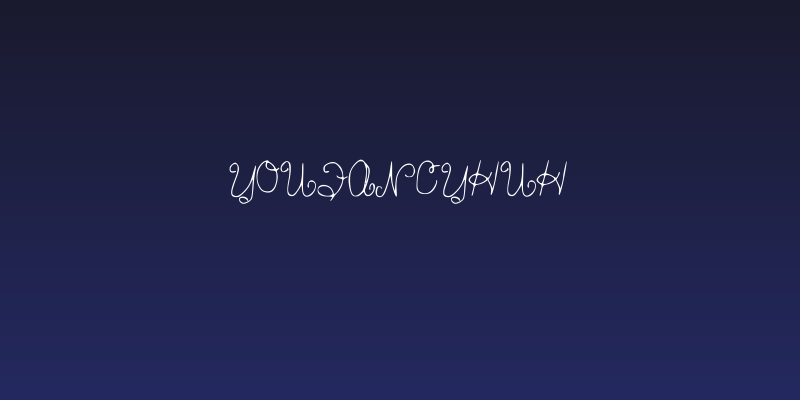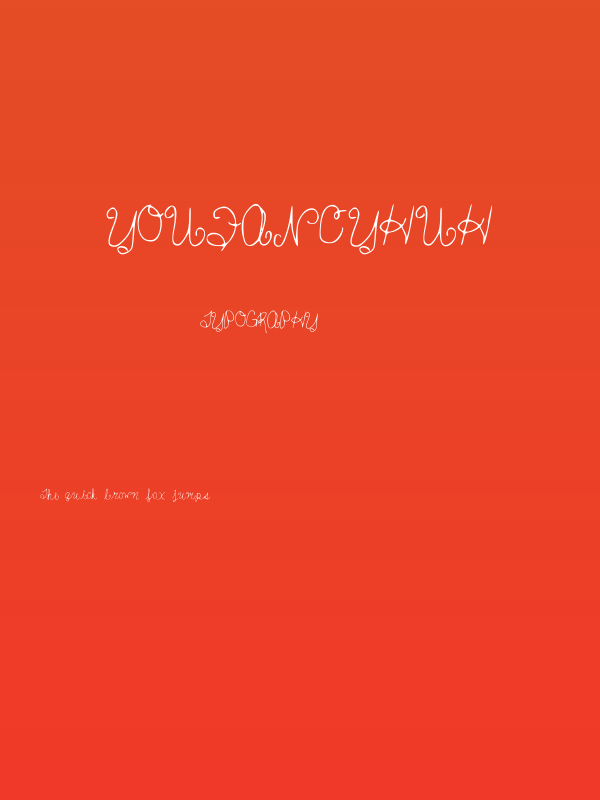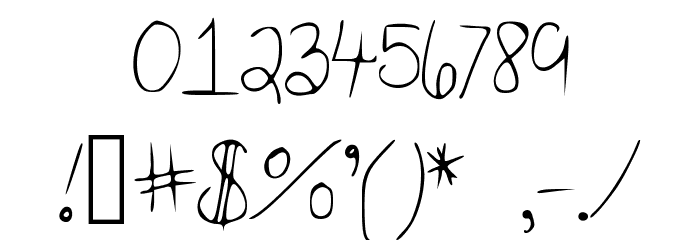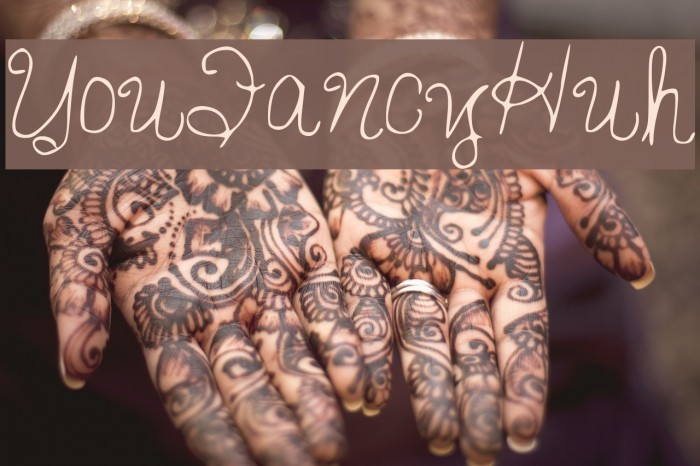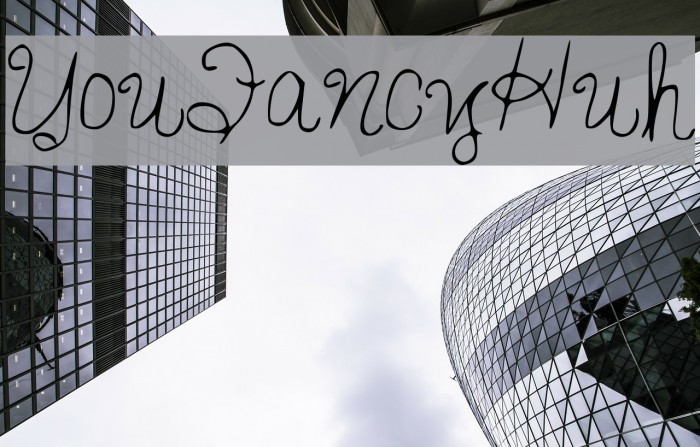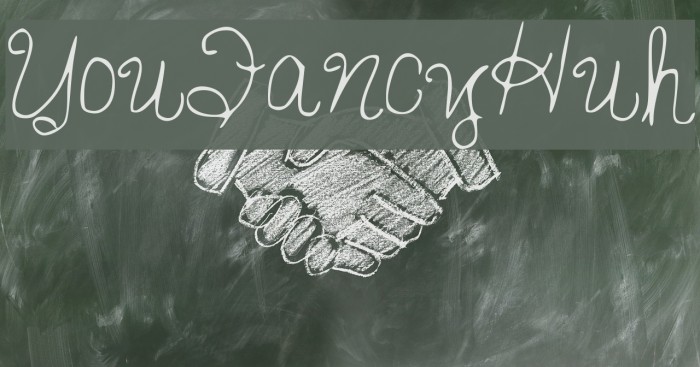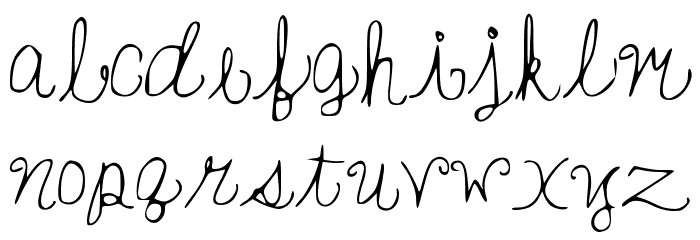
YouFancyHuh Font
YouFancyHuh Description
This font features a whimsical and playful script style, characterized by its flowing, interconnected letters and decorative loops. The uppercase letters exhibit a unique blend of elegance and creativity, with each character having its own distinct flair. The lowercase letters maintain a consistent style, with smooth curves and a slightly informal appearance. The numerals are designed to complement the overall aesthetic, with a playful twist that adds to the font's charm. Special characters are thoughtfully crafted, maintaining the font's cohesive look. This font is ideal for projects that require a touch of personality and creativity.
| Use Case | Logos, Invitations, Greeting Cards |
| Proposed Projects | Ideal for invitations, greeting cards, branding, and creative projects that require a personal touch. |